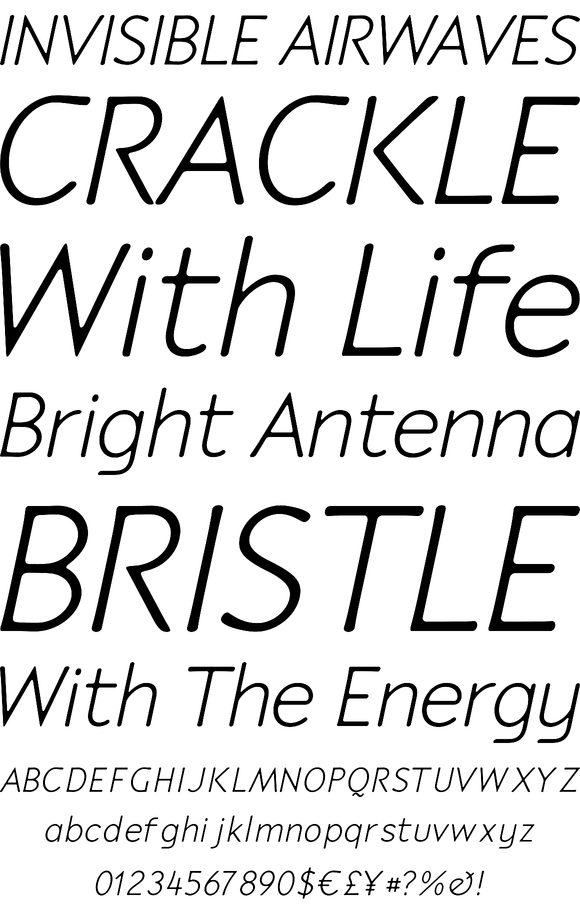
Speyside is a round, curved and controlled sans serif with an additional set of decorated uppercase letters, initials and small caps. It's appropriate for text, titling and display. The origin of the name is taken from a small location in Tobago. The font...
P22 Speyside by Torleiv Sverdrup
P22 Speyside is a round, curved and controlled sans serif, with an additional set of decorated uppercase letters, initials and small caps. It's appropriate for text, titling and display. The origin of the name is taken from a small location in Tobago. The font is inspired by the local handicraft, the batik in particular.
P22 Speyside Pro OpenType features: Titling Capitals (titl) access the highly decorated capitals for titling and initial use. The motives for this initials letters are inspired by the Tobagonian handicraft- in particular, the batik. Stylistic Alternates (salt) are alternates for the titling capitals. Small Caps (smcp), Standard Ligatures (liga), Discretionary Ligatures (ding), Fraction (frac), Denominators (dnom),Numerators (numr), Superscript (sups) - primarily for footnote indication, Scientific Inferiors (sinf) - primarily for chemical or mathematical notation.
About Torleiv Sverdrup (1959) - Torleiv Sverdrup has been a freelance graphic designer for more than 20 years. Since 2005, he has spent most of his time working on type design. "I get inspiration wherever I go. Whenever I get an idea, I start from scratch, working with just a couple of letters. These letters then serve as a "matrix" for the remaining letters. The final result is often quite different from my initial idea, as I let things evolve as they go. The creative process is the drive, the engine, of my work: it is like a voyage during which you have enter many hitherto unknown ports of call."